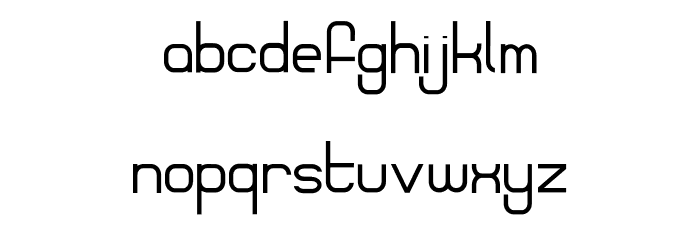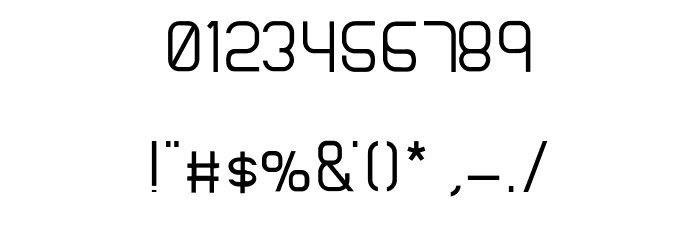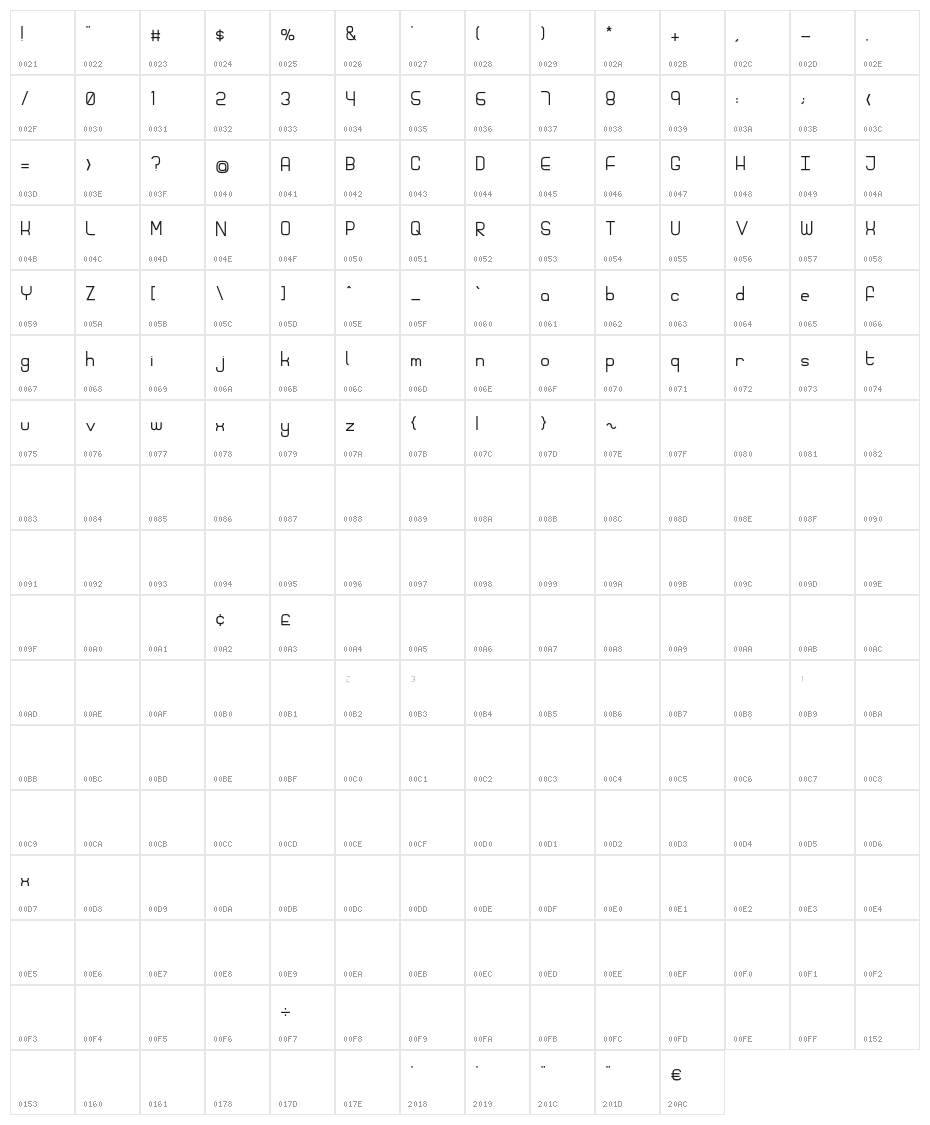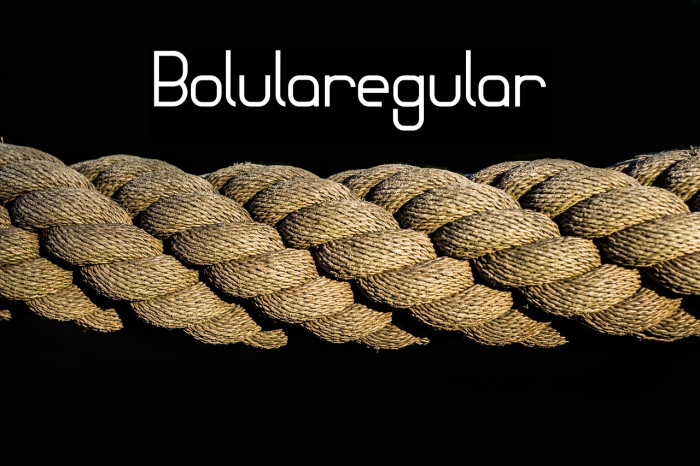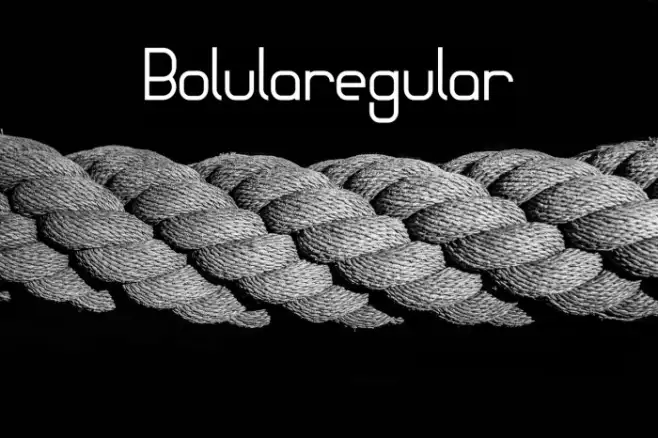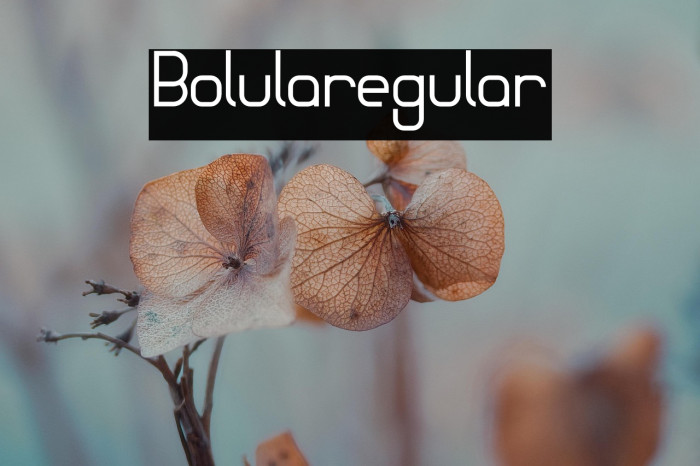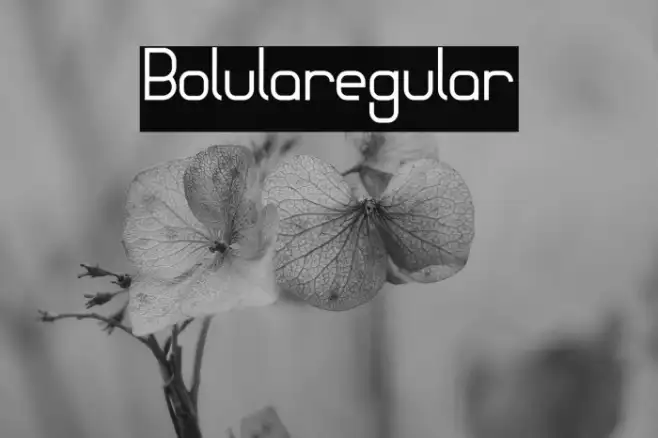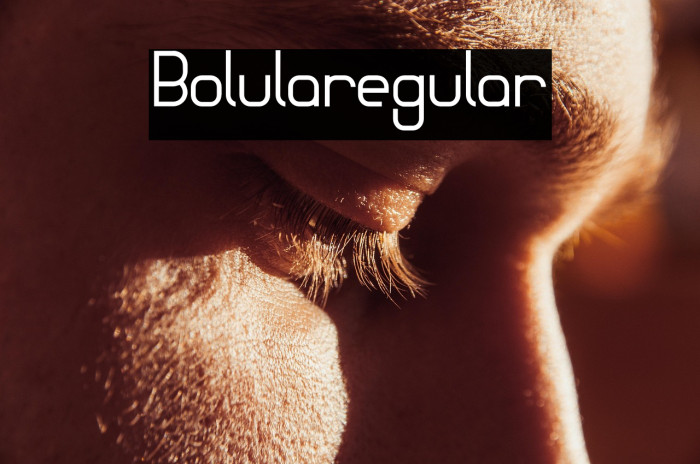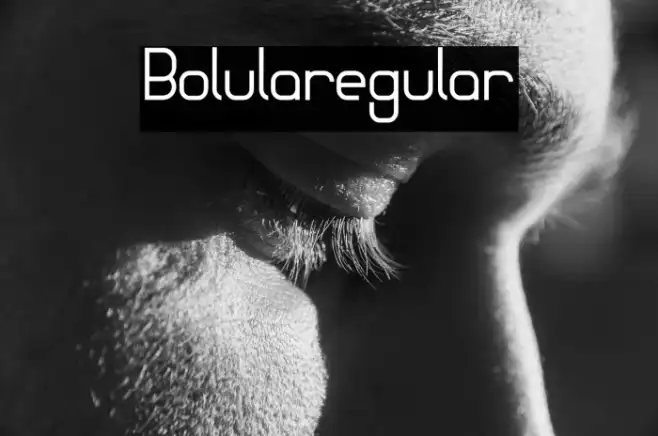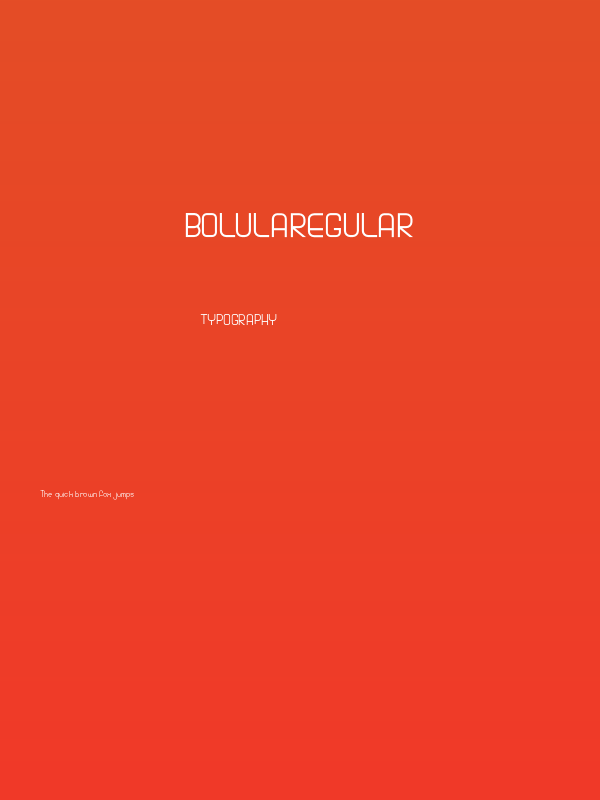
Bolularegular Font
This font features a clean and modern design with a geometric structure. The characters are evenly spaced, providing a balanced and harmonious appearance. The uppercase letters are bold and assertive, while the lowercase letters maintain a consistent style with slightly rounded edges, giving a friendly and approachable feel. The numerals are clear and legible, making them suitable for various applications. Special characters are well-defined, ensuring versatility in design projects. Overall, the font exudes a contemporary and professional vibe, ideal for digital and print media.
A modern, geometric font with clean lines and balanced spacing.
- Proposed Projects: Ideal for tech branding, digital interfaces, signage, and editorial design.